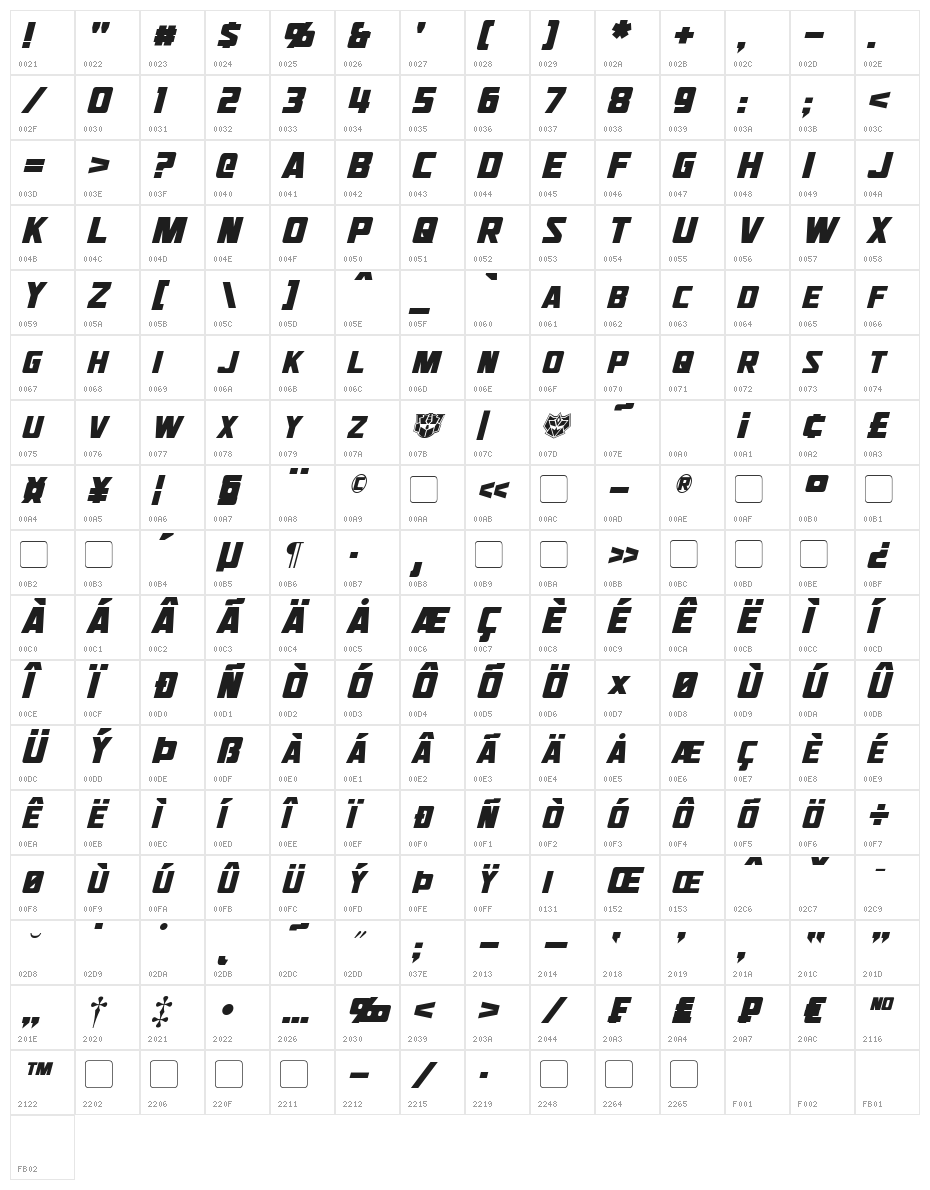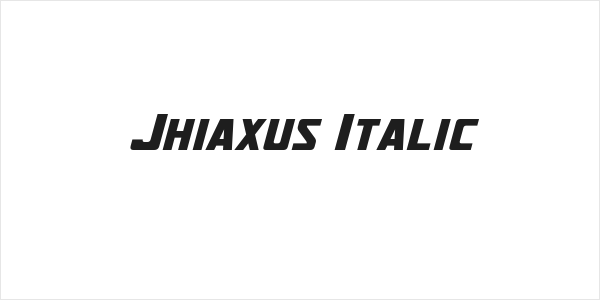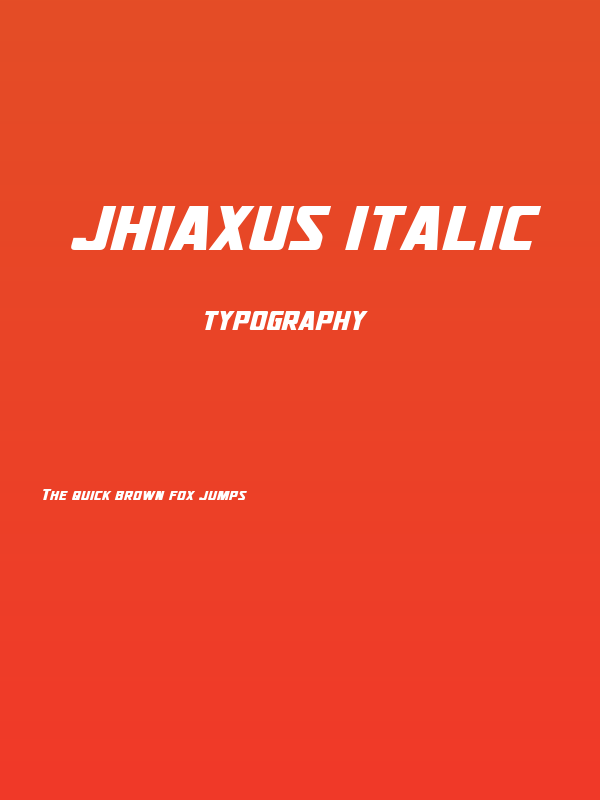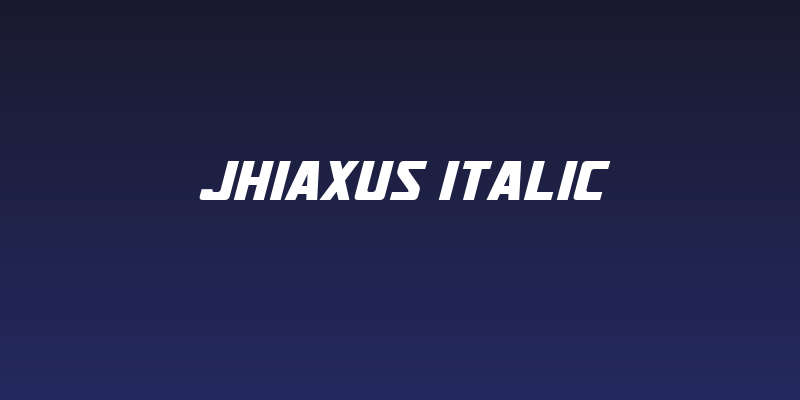
Jhiaxus Italic Font
Jhiaxus Italic Description
This font features a bold and dynamic design with a strong italic slant, giving it a sense of motion and energy. The characters are robust and angular, with sharp edges and a futuristic aesthetic. The uppercase and lowercase letters maintain a consistent style, while the numerals and special characters are equally bold and impactful. This font is well-suited for projects that require a modern and assertive look, such as technology branding, sports team logos, or action-oriented designs.
| Use Case | Logos, Headlines |
| Proposed Projects | Ideal for technology branding, sports logos, and action-themed designs. |